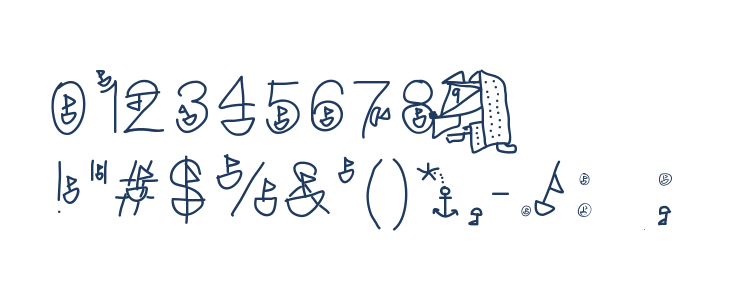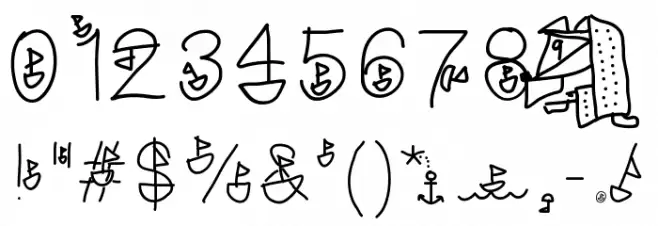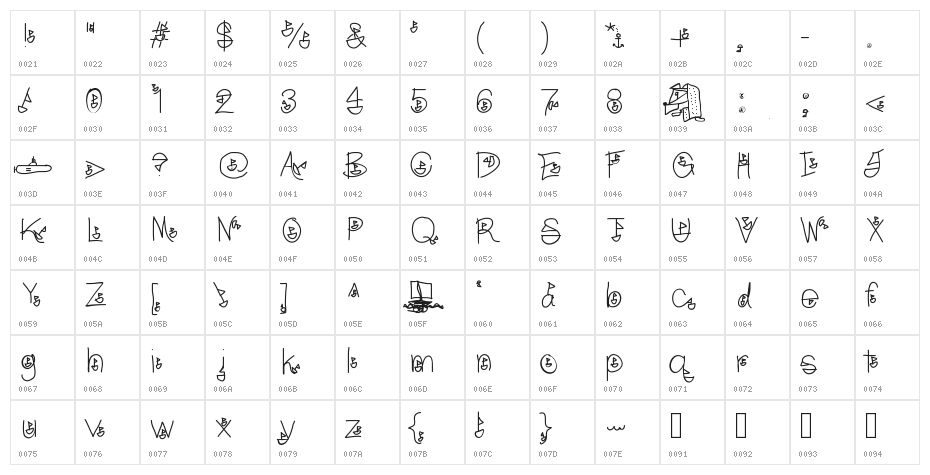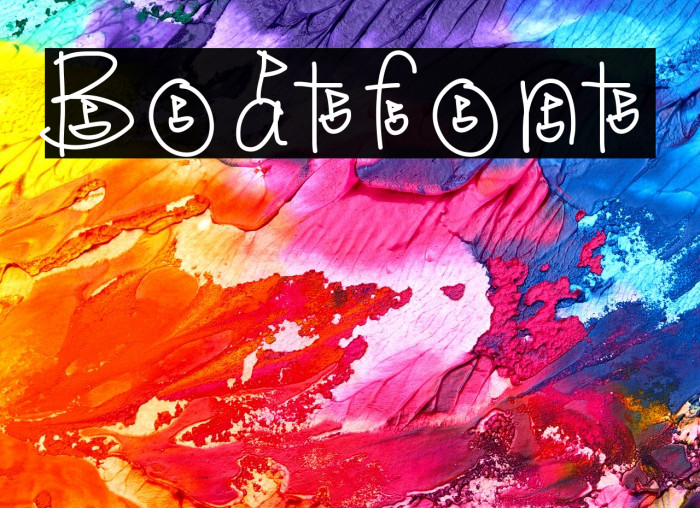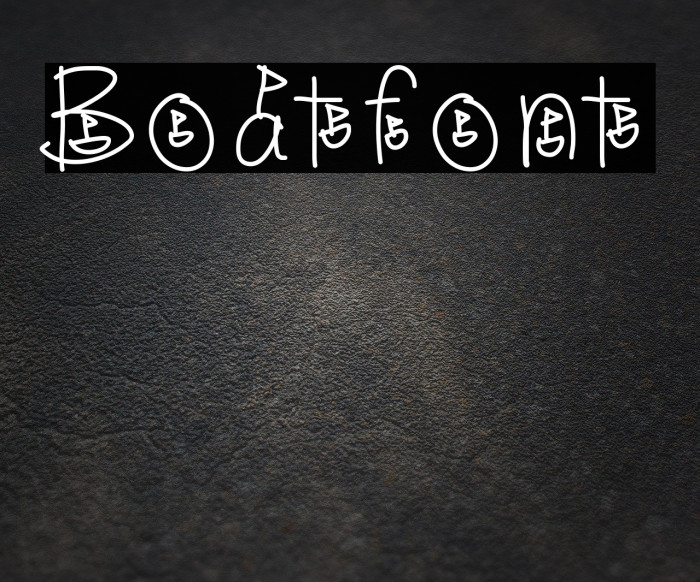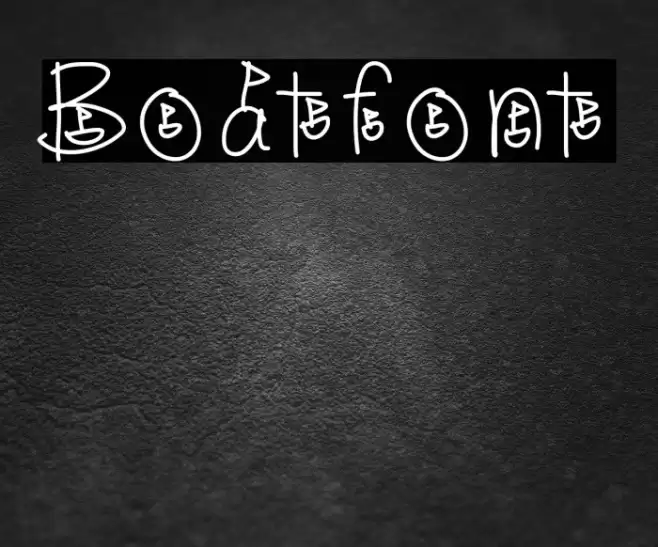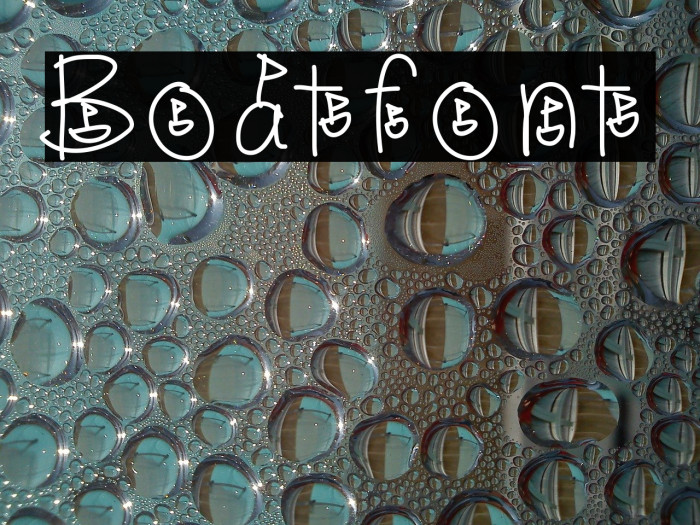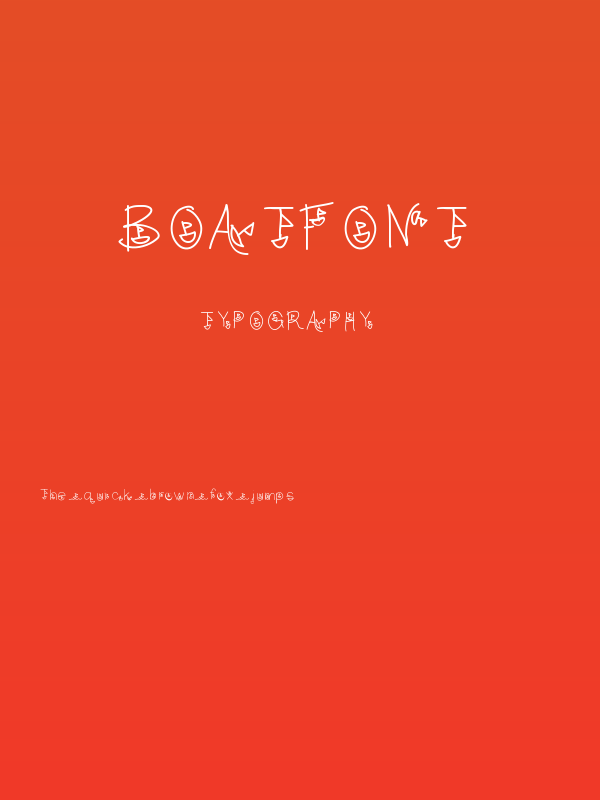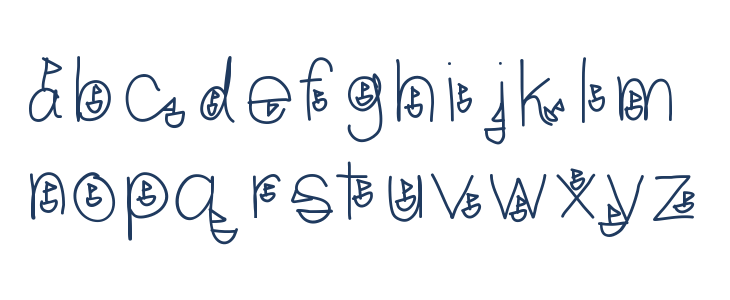
Boatfont Font
Boatfont Description
This whimsical font features a playful nautical theme, with each character incorporating elements reminiscent of boats and waves. The letters are crafted with a unique blend of curves and angular lines, giving them a dynamic and fluid appearance. The uppercase and lowercase letters maintain a consistent style, while the numbers and special characters are adorned with maritime motifs. The overall design is both imaginative and engaging, making it ideal for creative projects that require a touch of the sea.